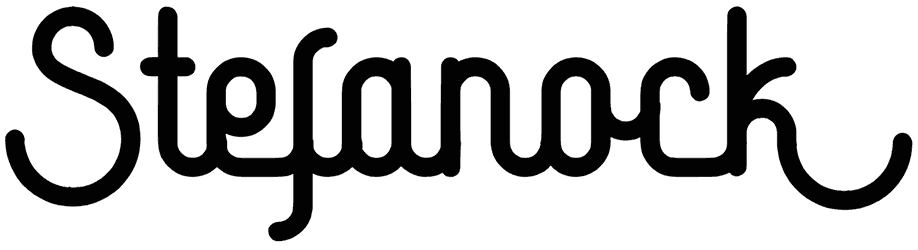
Stefanock Font
If you’re going for a laid-back look, Stefanock is your best bet. Its cohesive appearance works well with a wide variety of artistic genres that benefit from looking fresh and original. For anything from books and applications to T-shirts and posters, this neon font is a great choice for a compelling vibe. Its shape is clean and connected; therefore, feel free to use it in your work.